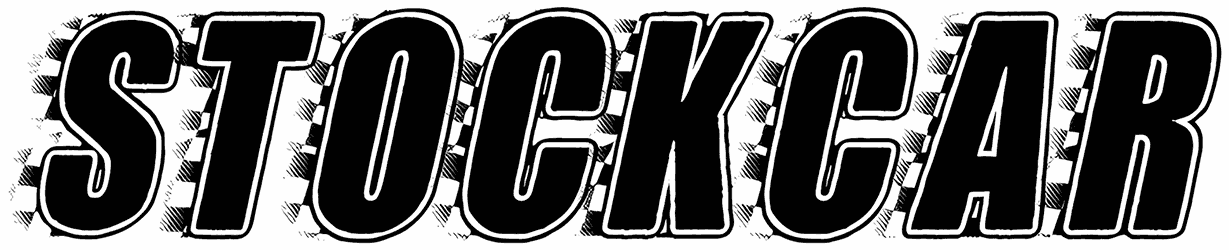
Stockcar Font
Stockcar is an adorable speed font that, due to its magical style and wonderful look, would also be classified as a racing font and included in movie posters, video game brochures, product packaging, social media posts,…
Stockcar is an adorable speed font that, due to its magical style and wonderful look, would also be classified as a racing font and included in movie posters, video game brochures, product packaging, social media posts, or the user interface of applications.
Although numbers are not included in this all-caps font, it still has the ability to convey a sense of dynamic, modernity, friendliness, or vivacity.
Four overlapping fonts!